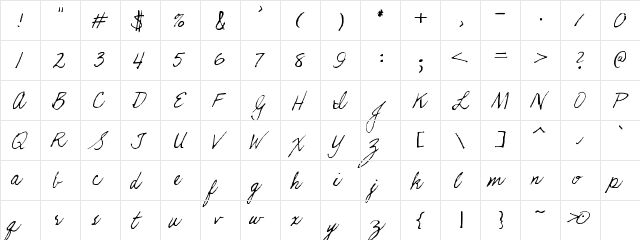
KathleenieFont Regular
Design Context for KathleenieFont Typeface
KathleenieFont is a composed and adaptable typeface that performs quietly and consistently across a wide range of design contexts.